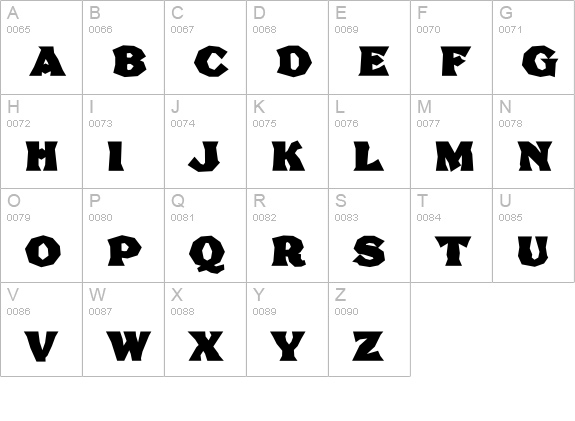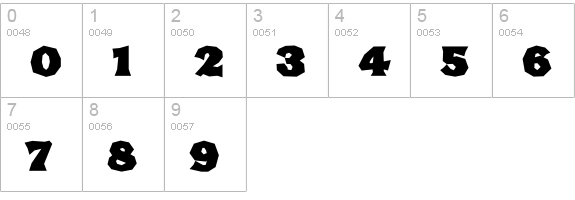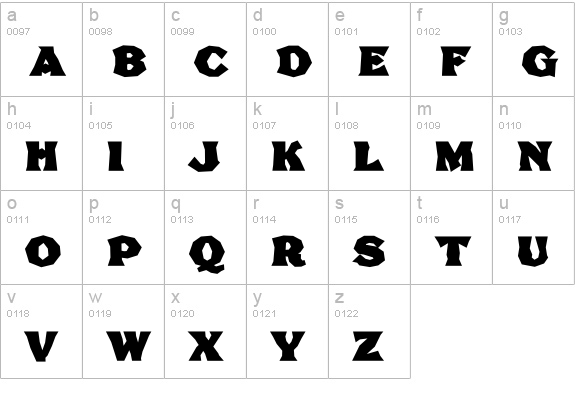
FHA Brokn Gothic BustdC NC Font Details
Introducing FHA Brokn Gothic BustdC NC font, a captivating and unique typeface that effortlessly combines vintage charm with a modern twist. This font is the perfect blend of broken and gothic aesthetics, creating a truly mesmerizing visual experience for any design project. With its intricate detailing and edgy character, FHA Brokn Gothic BustdC NC font adds a touch of mystery and sophistication to your designs. From logos and branding to posters and invitations, this font is versatile and adaptable, making it suitable for various creative endeavors. What sets FHA Brokn Gothic BustdC NC font apart is not just its stunning appearance, but also the fact that it is freely available for download at FontsMarket.com. That's right, you can access this remarkable font without any cost, allowing you to enhance your designs without breaking the bank. Whether you're a professional designer or a passionate hobbyist, FHA Brokn Gothic BustdC NC font offers you the opportunity to elevate your creations with its distinctive and captivating style. So why wait? Head over to FontsMarket.com and grab this incredible font for free, and let your imagination run wild with endless possibilities.